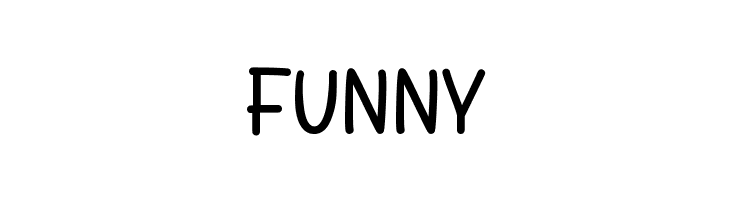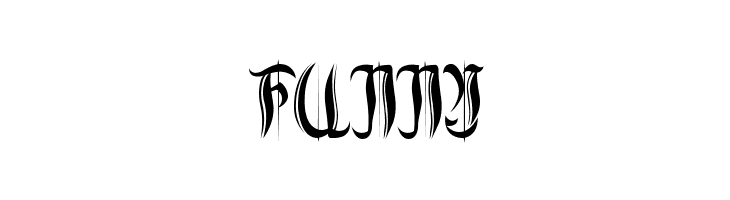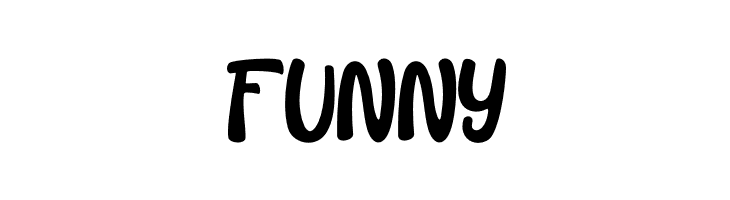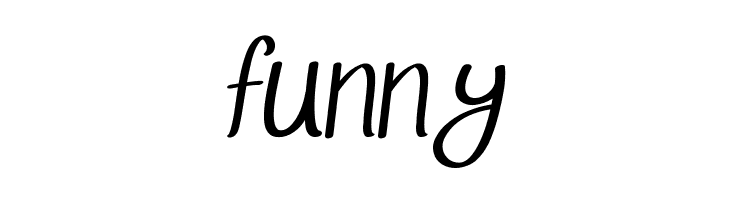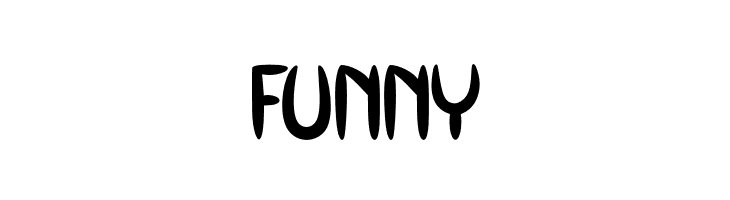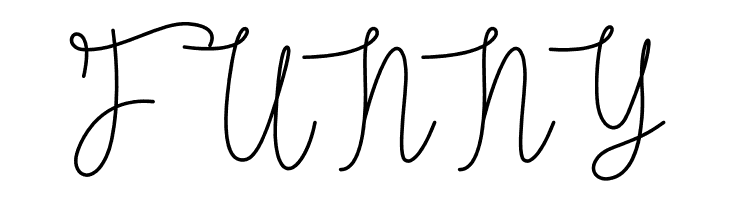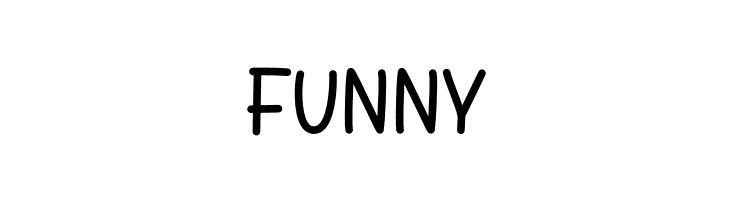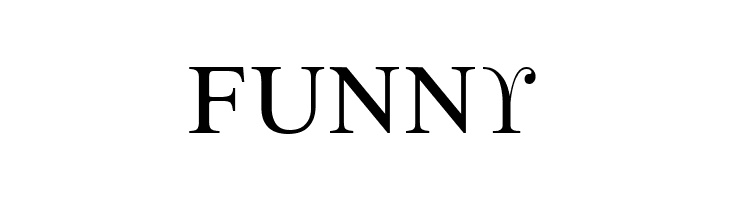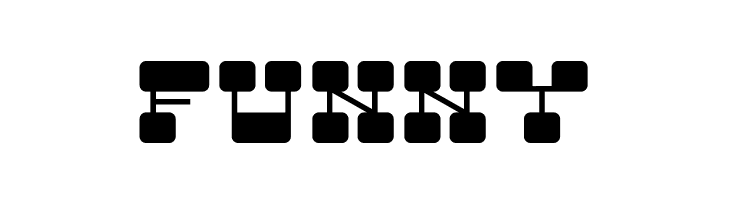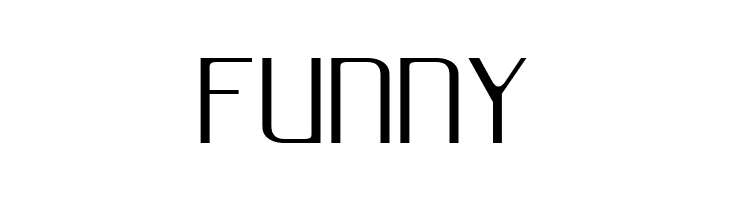
A bold, playful font with exaggerated curves and a dynamic style.
A bold, expressive handwritten font with dynamic strokes.
A playful, bold, and hand-drawn style font with rounded, irregular characters.
A bold, geometric font with a modular and futuristic design.
A playful and flowing script font with smooth, cursive strokes.
A bold, futuristic font with geometric, rounded letterforms.
A modern, geometric font with clean, rounded edges and consistent stroke width.
A modern, geometric font with clean lines and rounded edges.
A bold, three-dimensional outline font with a modern and futuristic style.
A modern, geometric font with clean lines and a structured, professional appearance.
A modern, bold, and geometric font with a sleek design.
A modern, geometric font with clean lines and rounded edges.
A futuristic, abstract font with angular, geometric shapes.
A bold, playful, 3D-effect font with a decorative style.
A bold, playful handwritten font with rounded strokes and dynamic letterforms.
A classic Gothic font with intricate, angular letterforms and decorative flourishes.
A playful handwritten font with a casual, friendly style.
A modern, geometric sans-serif font with clean lines and uniform structure.
A playful, hand-drawn font with irregular, wavy lines and a whimsical style.
A graceful, cursive script font with elegant, flowing lines.
A playful, bold handwritten font with smooth, rounded edges.
A decorative and abstract font with intricate geometric shapes and symmetrical patterns.
A playful, handwritten font with smooth, rounded edges and a friendly appearance.
A playful, rounded handwritten font with smooth curves and a friendly appearance.
A graceful, cursive script font with a natural handwritten style.
A whimsical and decorative font with bold, swirling serifs and playful curves.
An elegant, cursive font with intricate curves and flourishes.
An elegant, cursive font with ornate flourishes and a classic calligraphy feel.
An elegant, cursive font with decorative loops and swirls.
A bold, brush-style font with dynamic and expressive strokes.